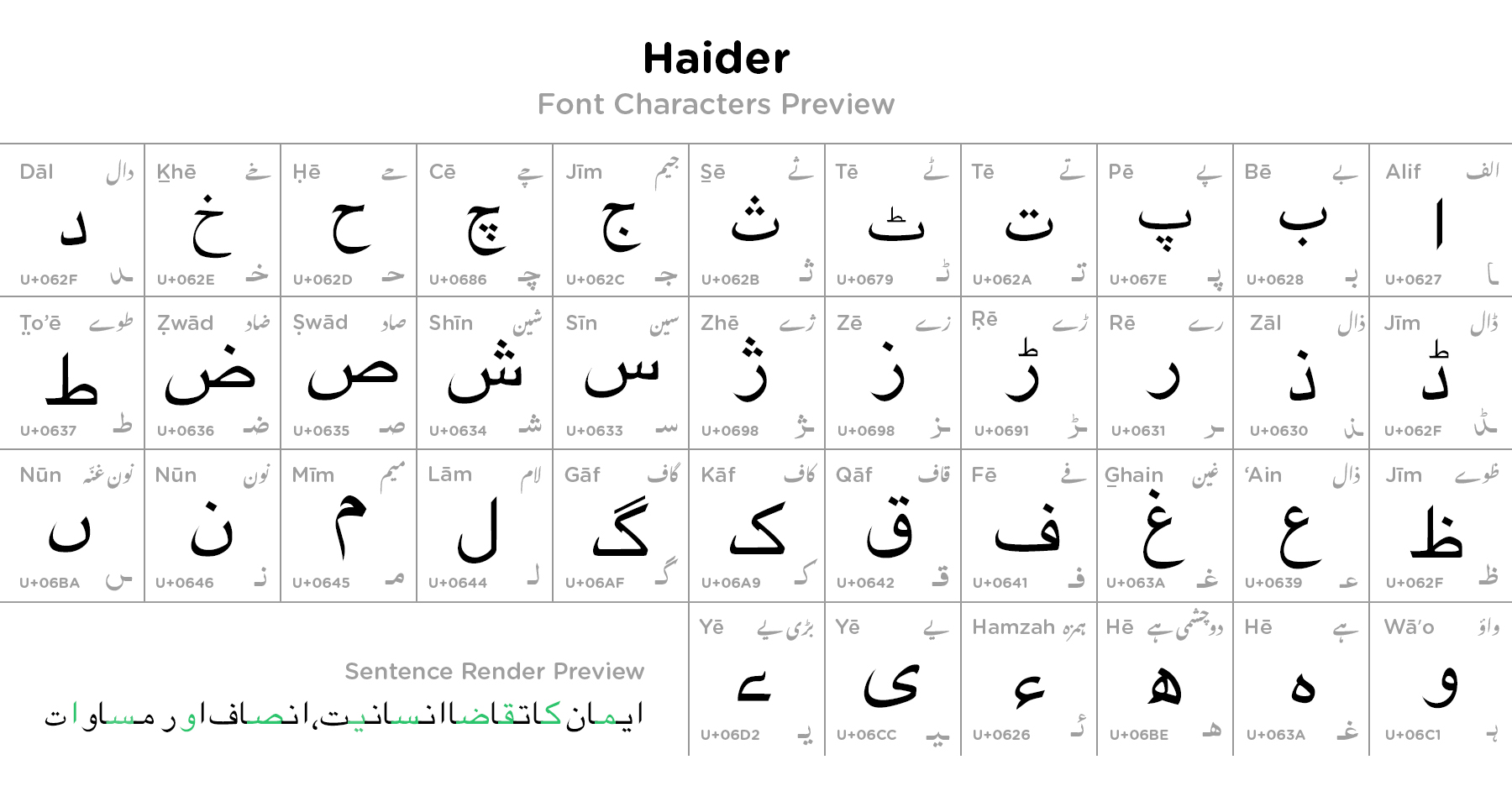
Haider
Haider, designed by Syed Manzar Hasan Zaidi and developed by Axis Softmedia Pvt. Ltd., is a regular Urdu font released on February 21, 2016. Drawing inspiration from the Naskh script with modern influences, it offers 444 characters and symbols, ensuring compatibility with various Unicode blocks. Moreover, this font is usable in different languages, including Arabic, Urdu, Persian, and more. This font style features widely spaced and monospaced letters, with horizontal emphasis, contributing to its clear and readable appearance. Despite its calligraphic inspiration, this typeface maintains high legibility on screens, even at small sizes, thanks to its clear and straightforward design.
The font boasts a constant thickness, with thin and pointy tips like in traditional Qalam writing. Generously spacious letters and constant spaces between characters contribute to Haider’s readability and clarity. Its contrasting strokes, denser in the middle and thinner near the edges, add depth and visual interest to the text. The characters are straight and formal, with pointy edges and sharp corners, enhancing its professional look. Whether used in social media posts, creative posters, book covers, or other design projects, this font ensures high readability and visual appeal. It is an excellent choice for longer texts where clarity and legibility are essential.